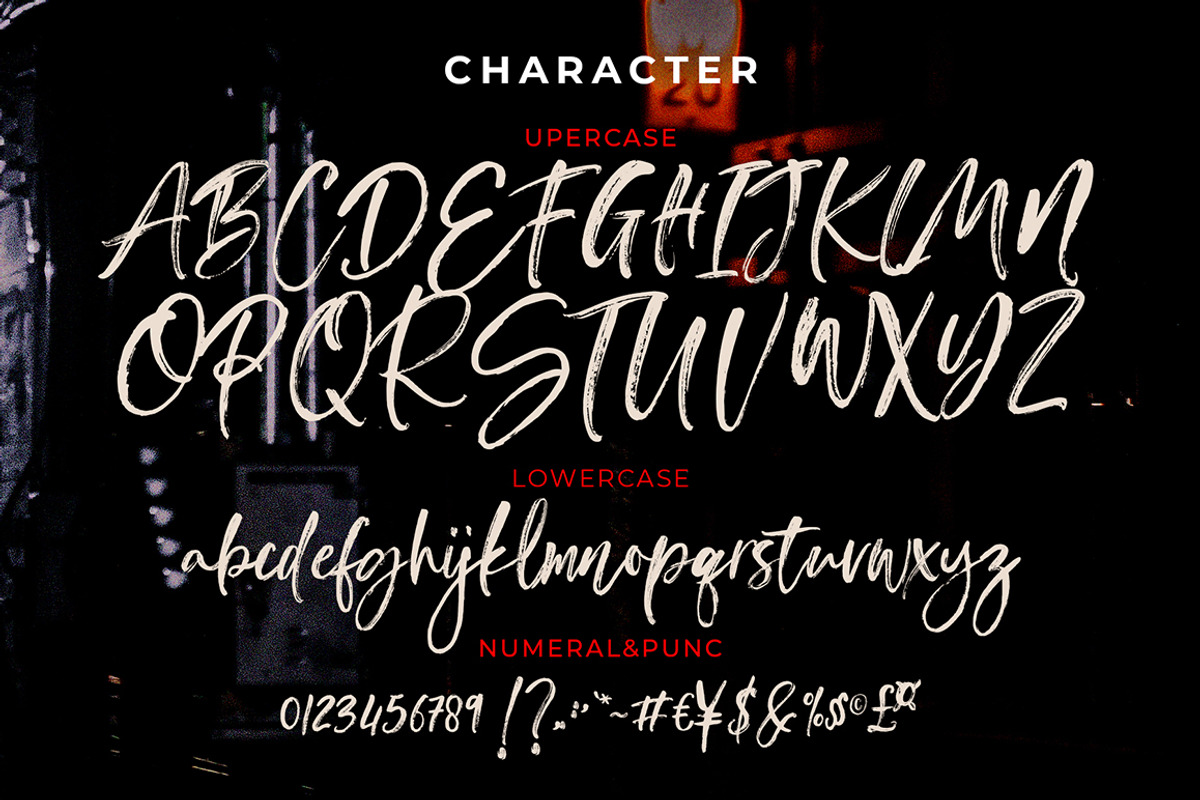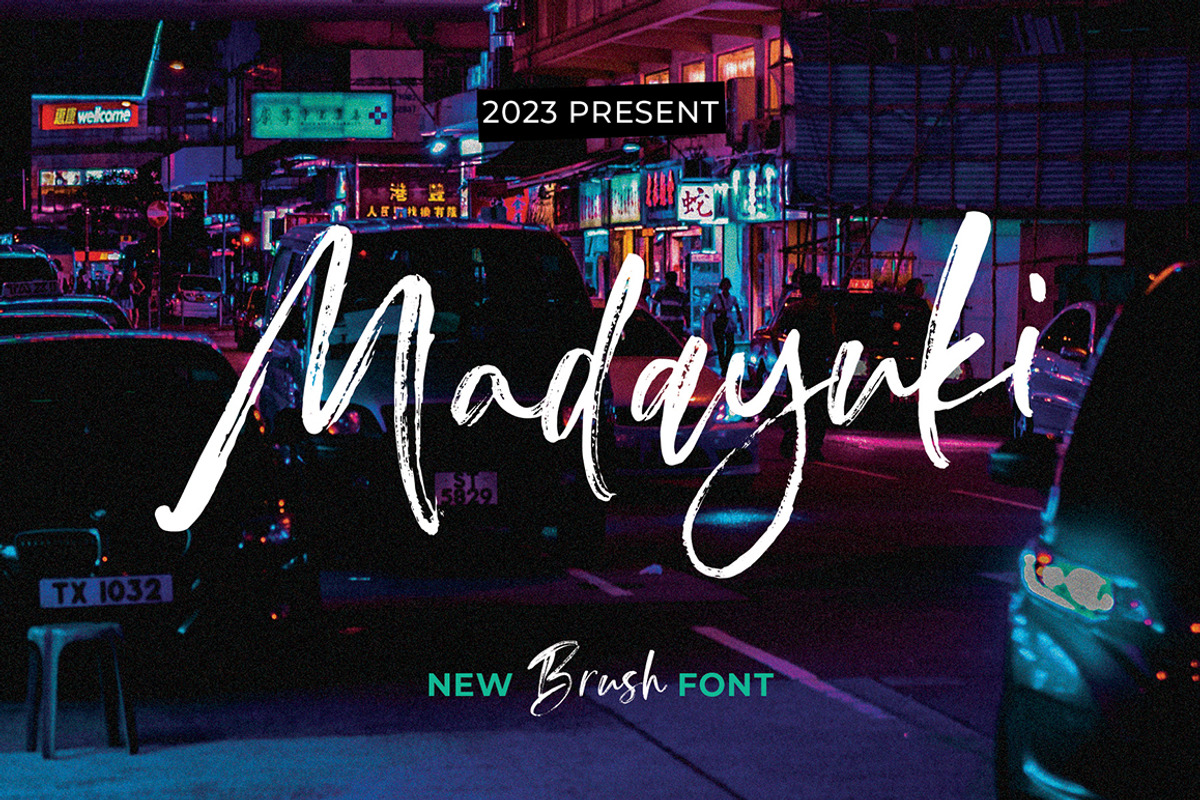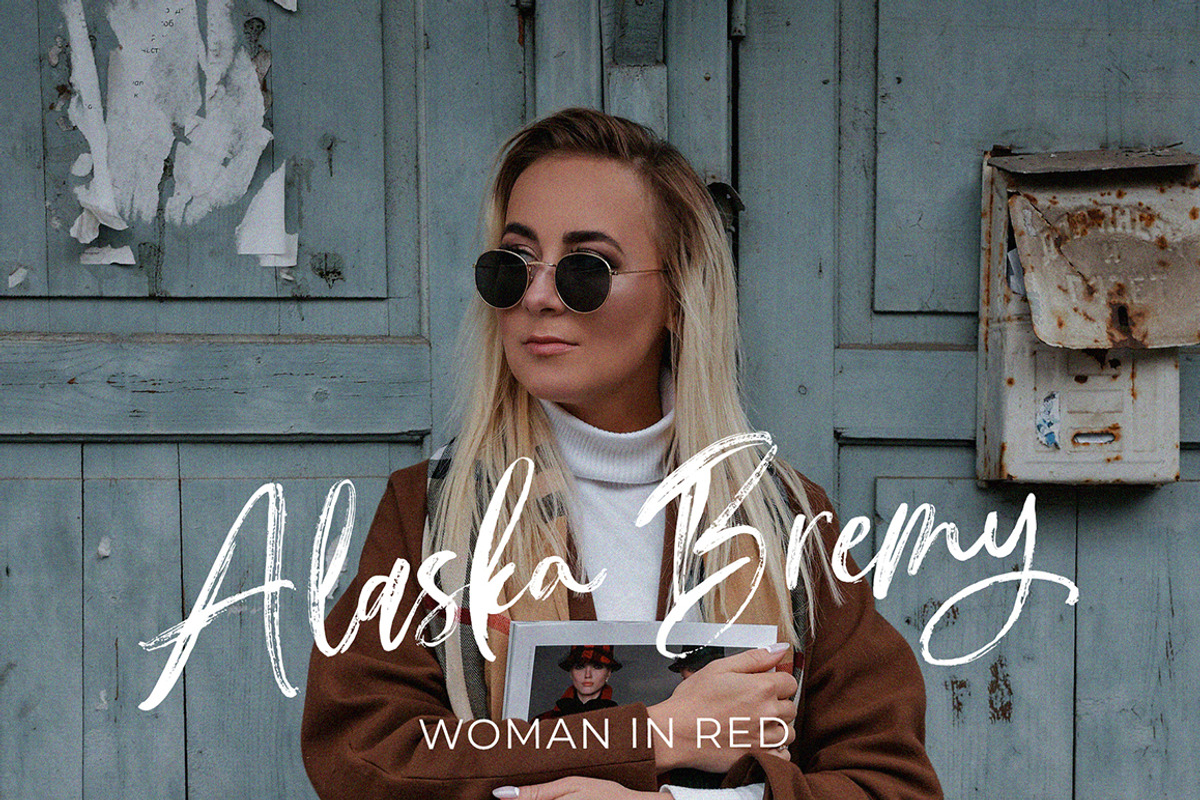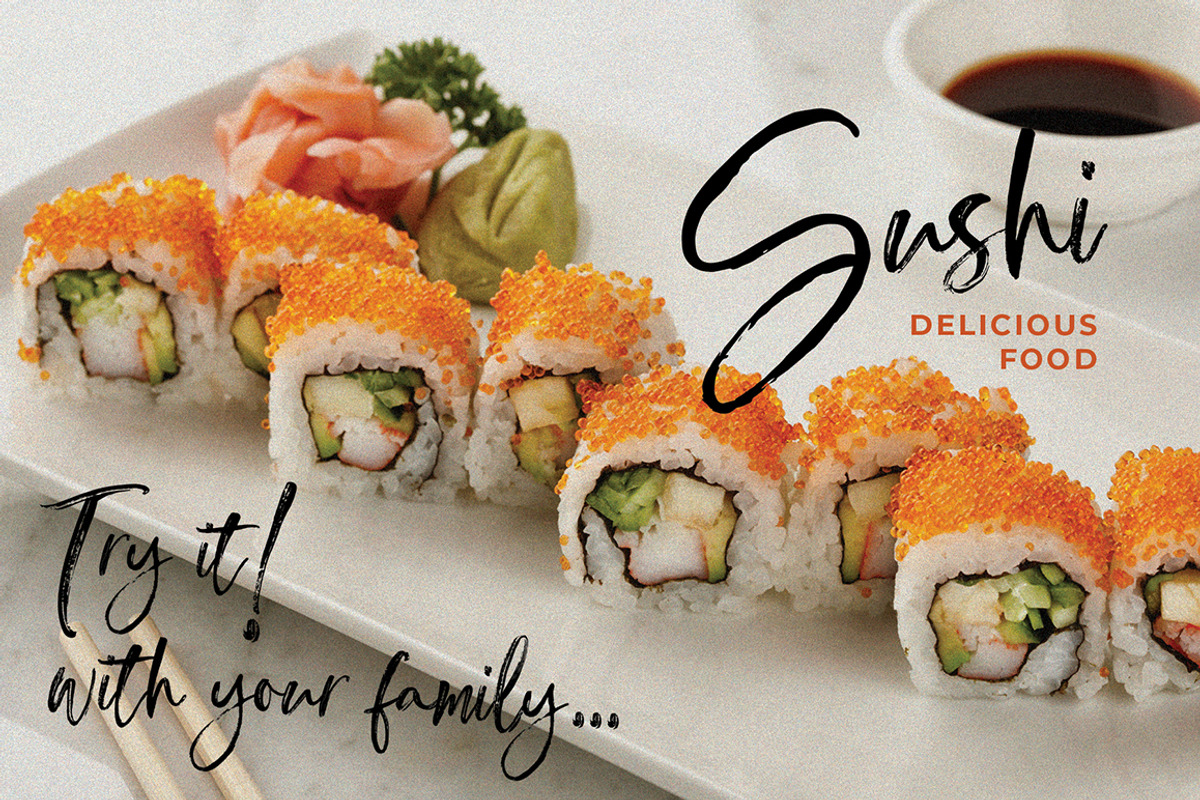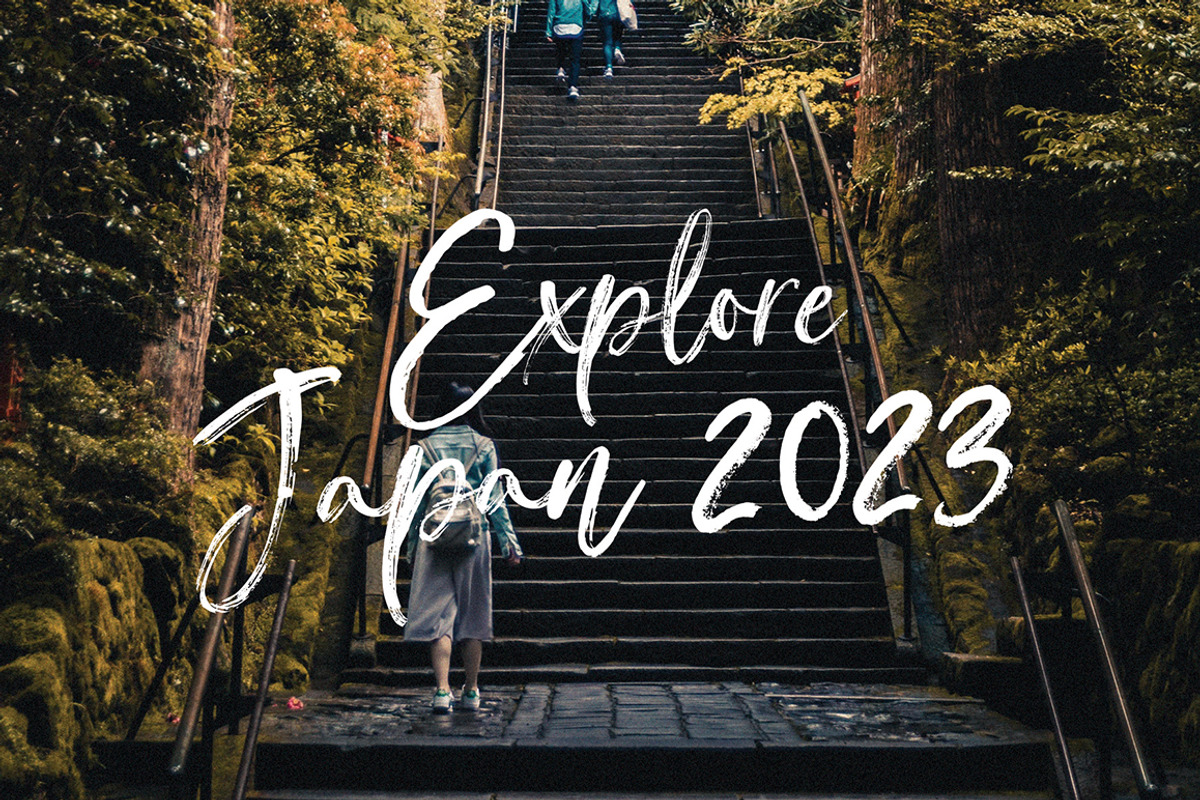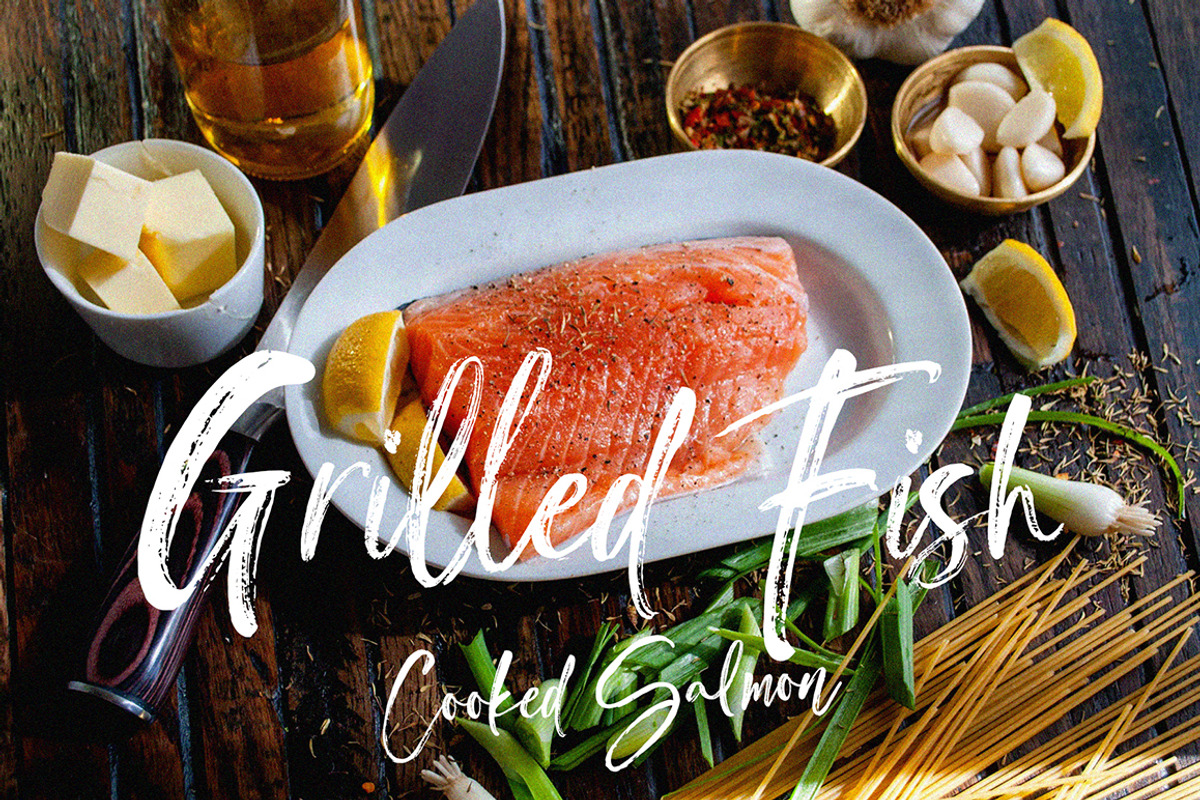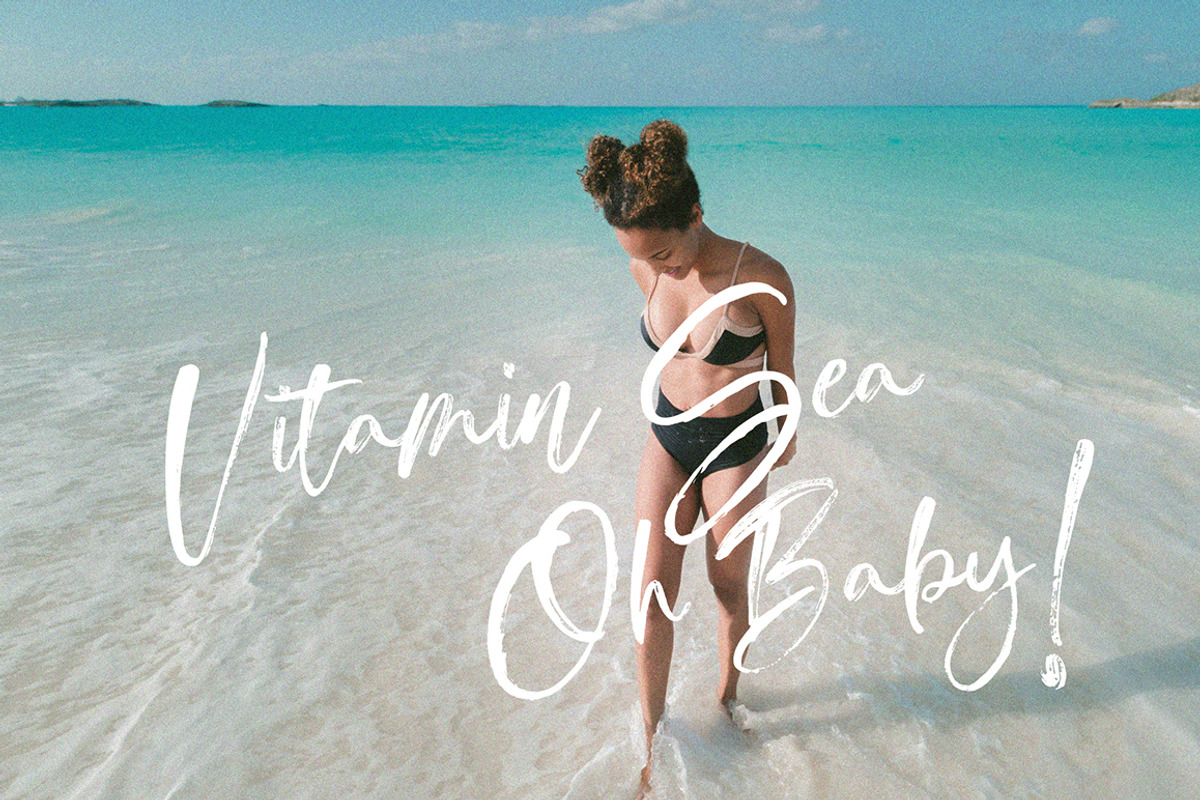
Madayuki
Madayuki Brush handmade It comes with a signature and unique style that is perfect for making any design stand out! This font is perfect for branding, wedding invitations, magazines, mugs, business cards, quotes, posters and more.
Uppercase - Lowercase Numbers & Punctuation Perfect for Headlines, Logotypes, Signs, Posters, Letterheads, T-Shirts and more. Supports International Languages Hope you enjoy with our Fonts